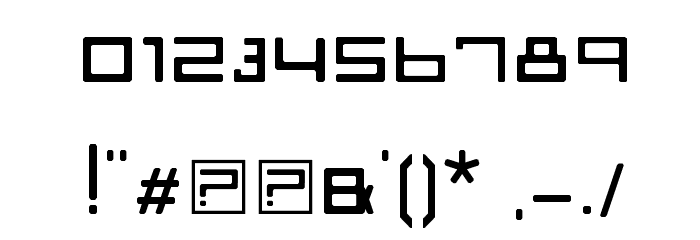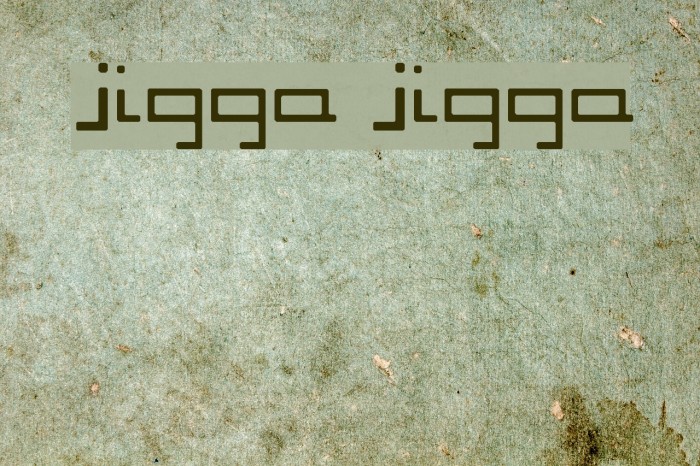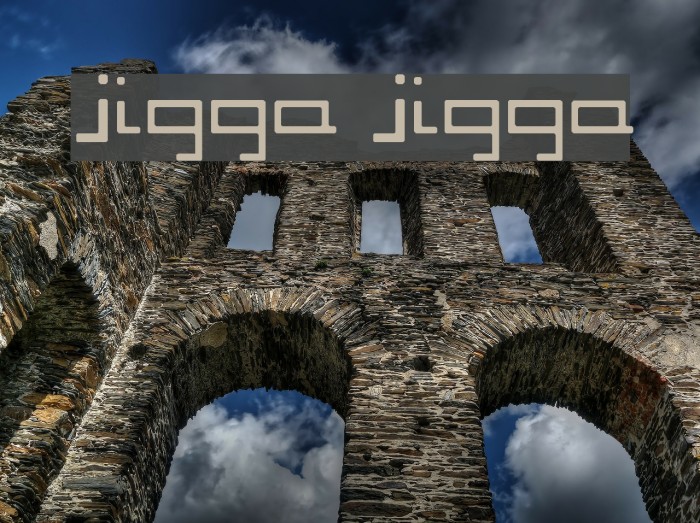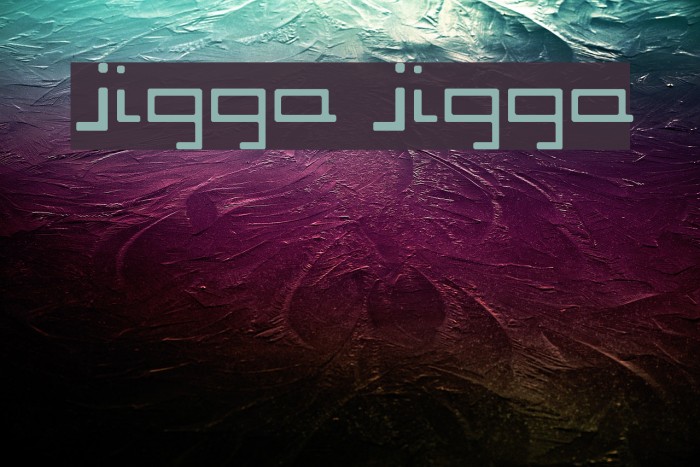
Jigga jigga Font
This font features a modern, geometric design with a distinct, futuristic aesthetic. The characters are composed of clean, straight lines and sharp angles, giving it a digital or tech-inspired look. The uppercase and lowercase letters maintain a consistent height, contributing to a uniform appearance. The numerals and special characters follow the same design principles, ensuring coherence across all glyphs. This font's unique style is ideal for projects that require a contemporary and innovative touch.
A modern, geometric font with a futuristic, tech-inspired design.
- Proposed Projects: Ideal for technology branding, digital interfaces, video game design, and modern advertising.
- Use Case: Logos, Headlines, Digital Interfaces